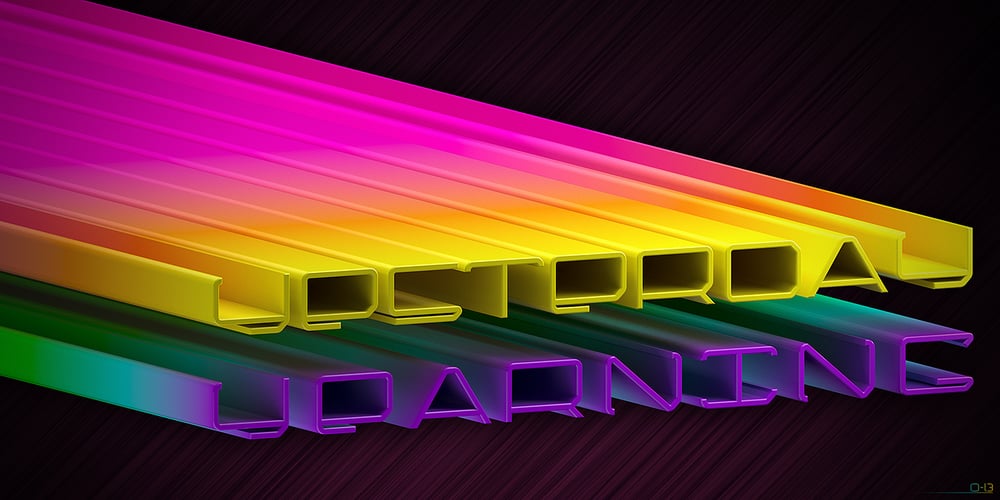
Apogee 013 Font Family was designed by Henry Peterson and published by zero-13. Apogee 013 contains 1 styles and family package options. Apogee 013 is a contemporary yet futuristic typeface with a Sci-Fi aesthetic which contains subtle asymmetrical cues, this display font is ideal for illustrative work, logos, headlines and digital art.